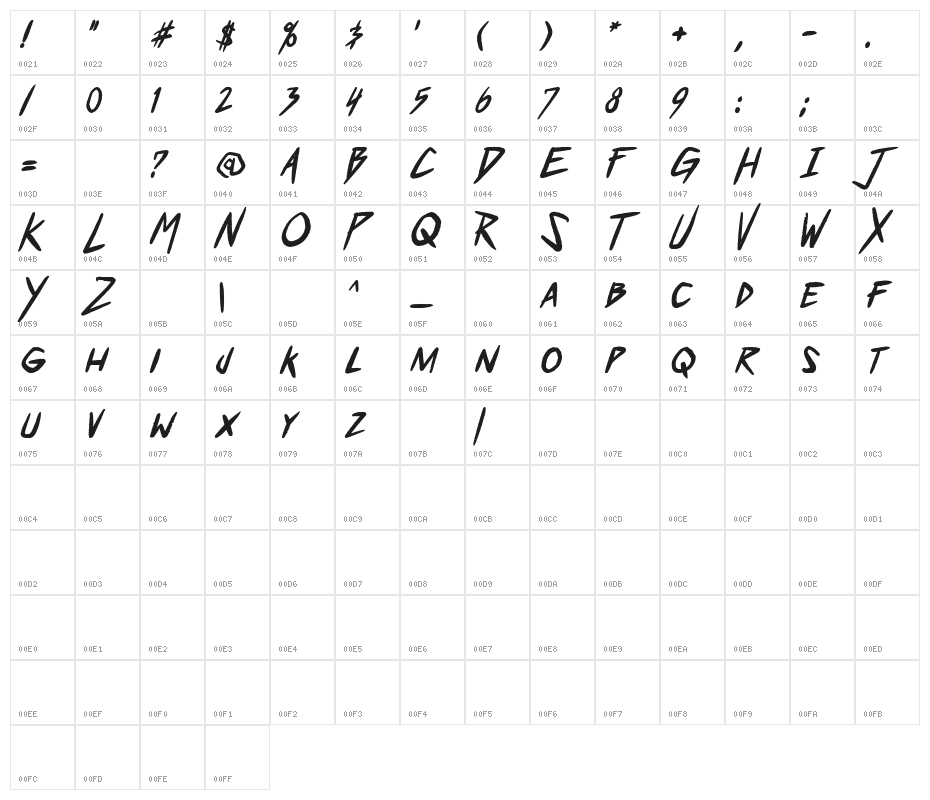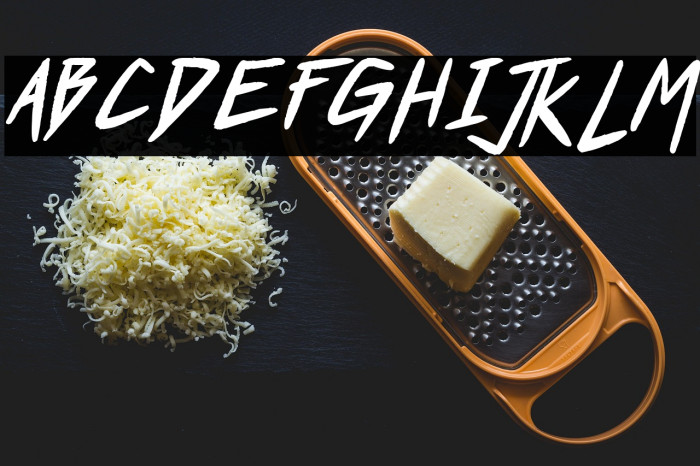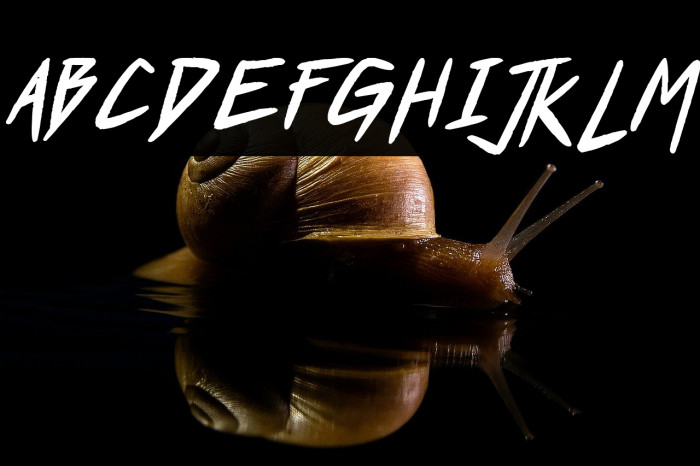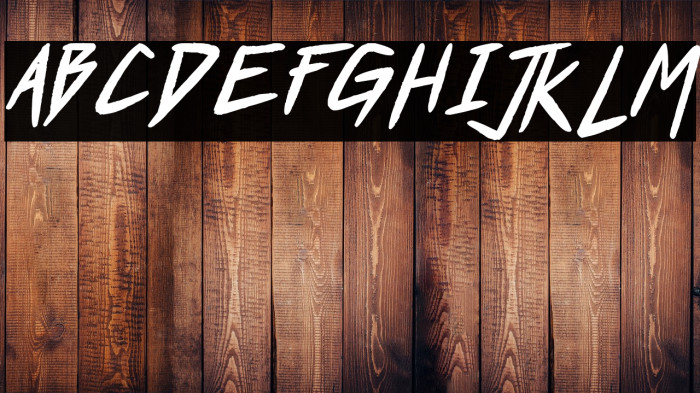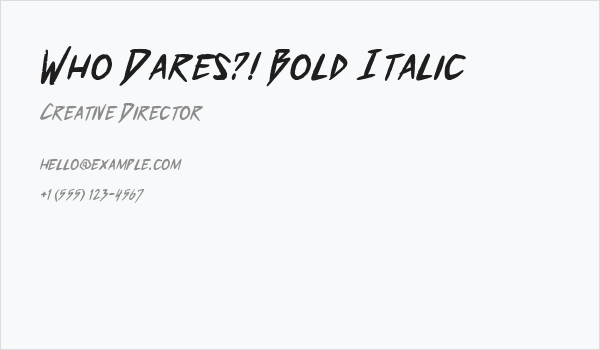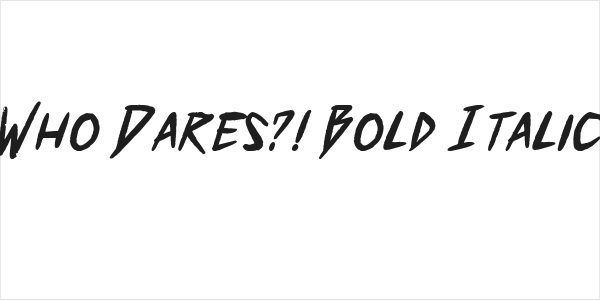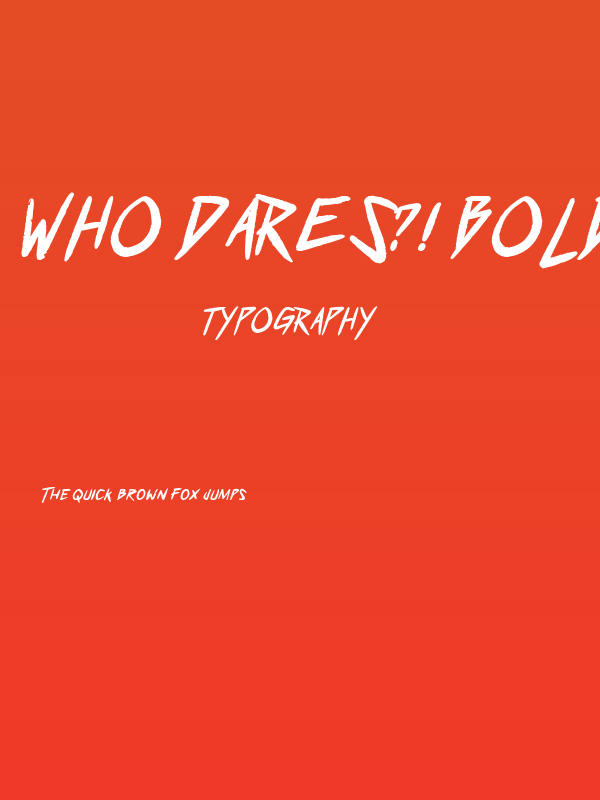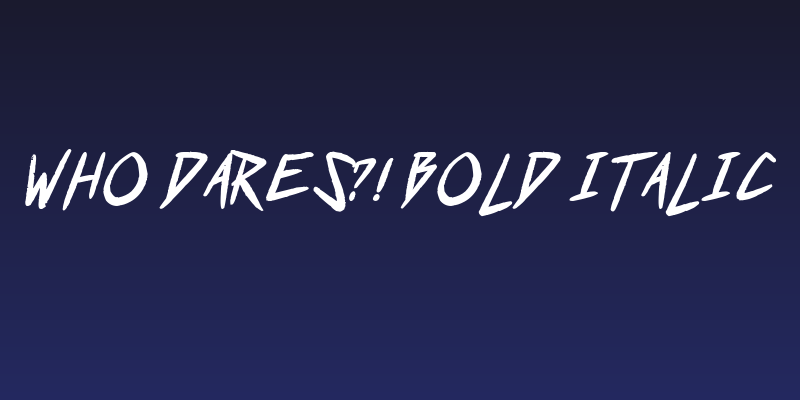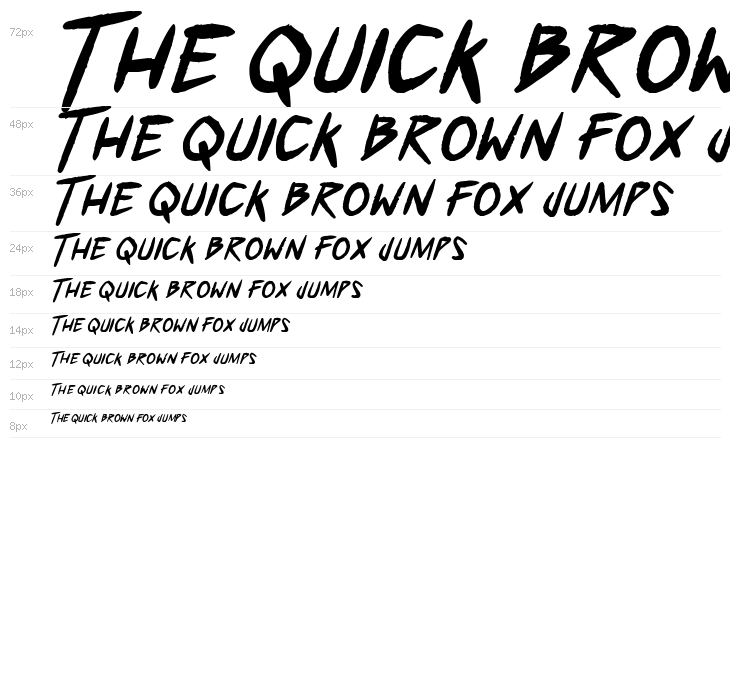
Who Dares?! Bold Italic Font
Who Dares?! Bold Italic Description
This font exudes a bold and dynamic energy, characterized by its sharp, angular strokes and italicized slant. Each letter is crafted with a sense of urgency and movement, making it ideal for projects that require a strong visual impact. The uppercase and lowercase letters maintain a consistent style, with a slight variation in stroke thickness that adds to the overall boldness. The numbers and special characters are equally expressive, ensuring a cohesive look across all text elements. This font's unique style is perfect for capturing attention and conveying a sense of action and excitement.
| Proposed Projects | Ideal for posters, headlines, branding, and any project needing a strong visual impact. |